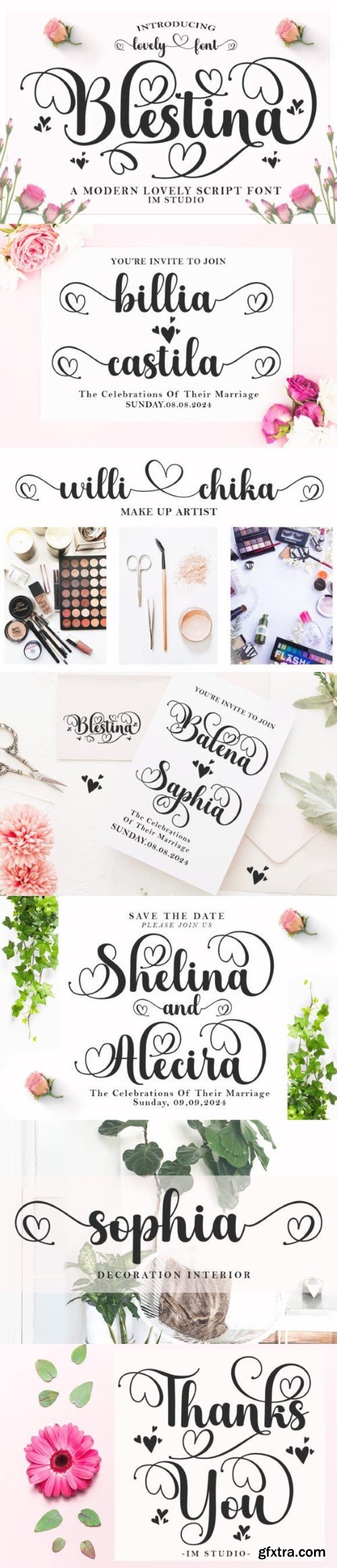
贝尔辛娜字体
Blestina is a charming handwritten font. This versatile script font has a wide spectrum of applications from greeting cards to headlines and is guaranteed to add a romantic feel to your next project.
This font is PUA coded which means you can access all the amazing glyphs and ligatures easily!